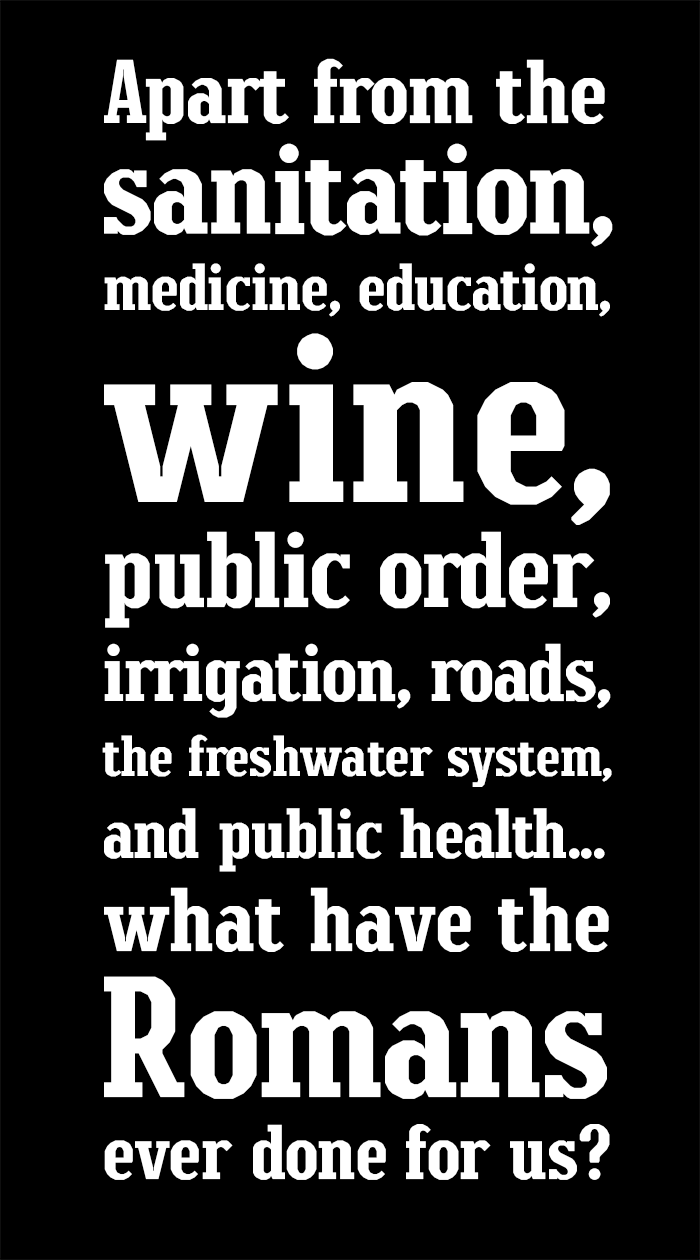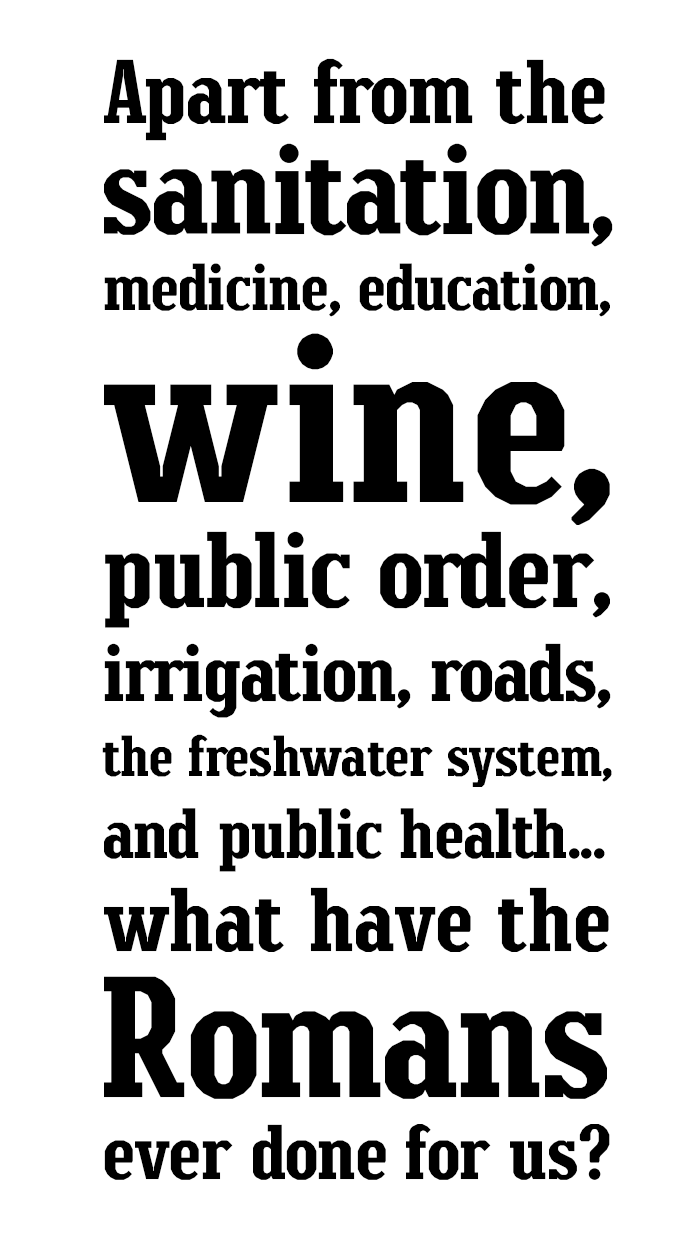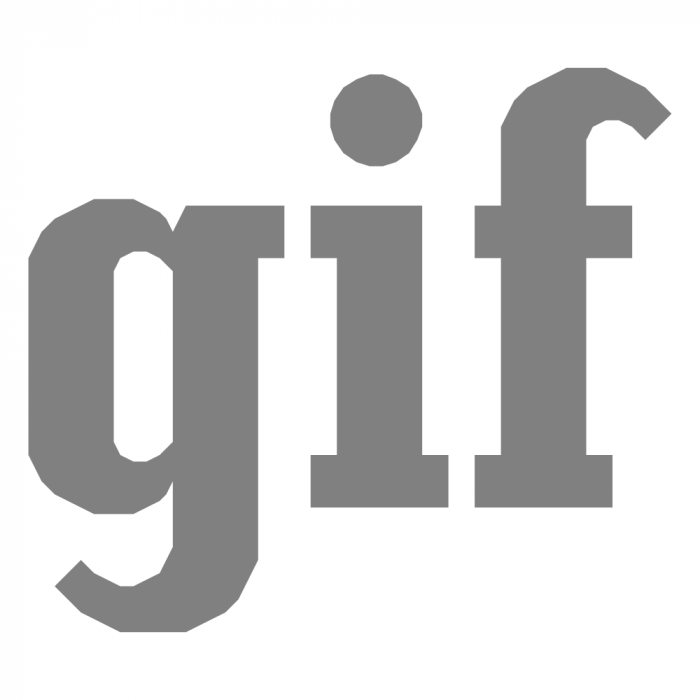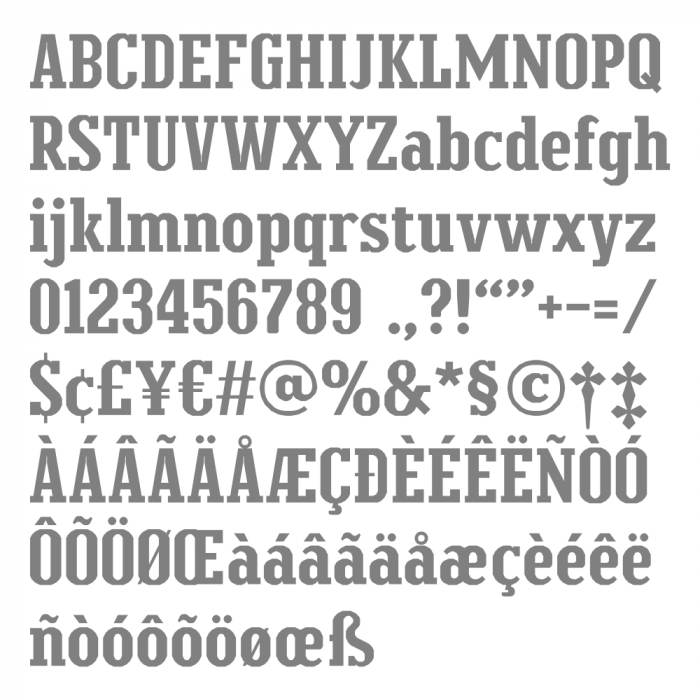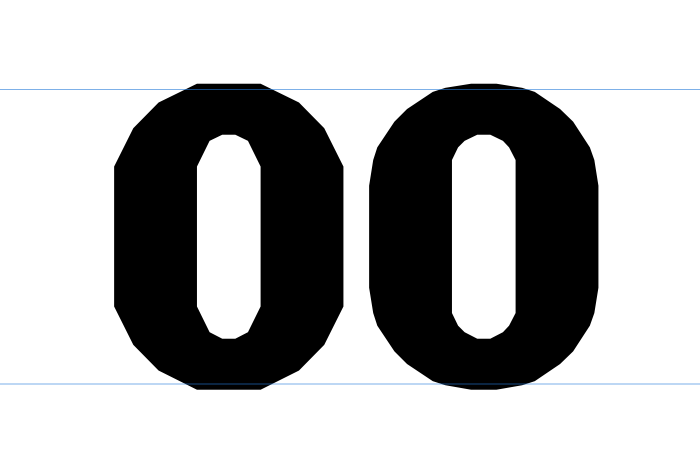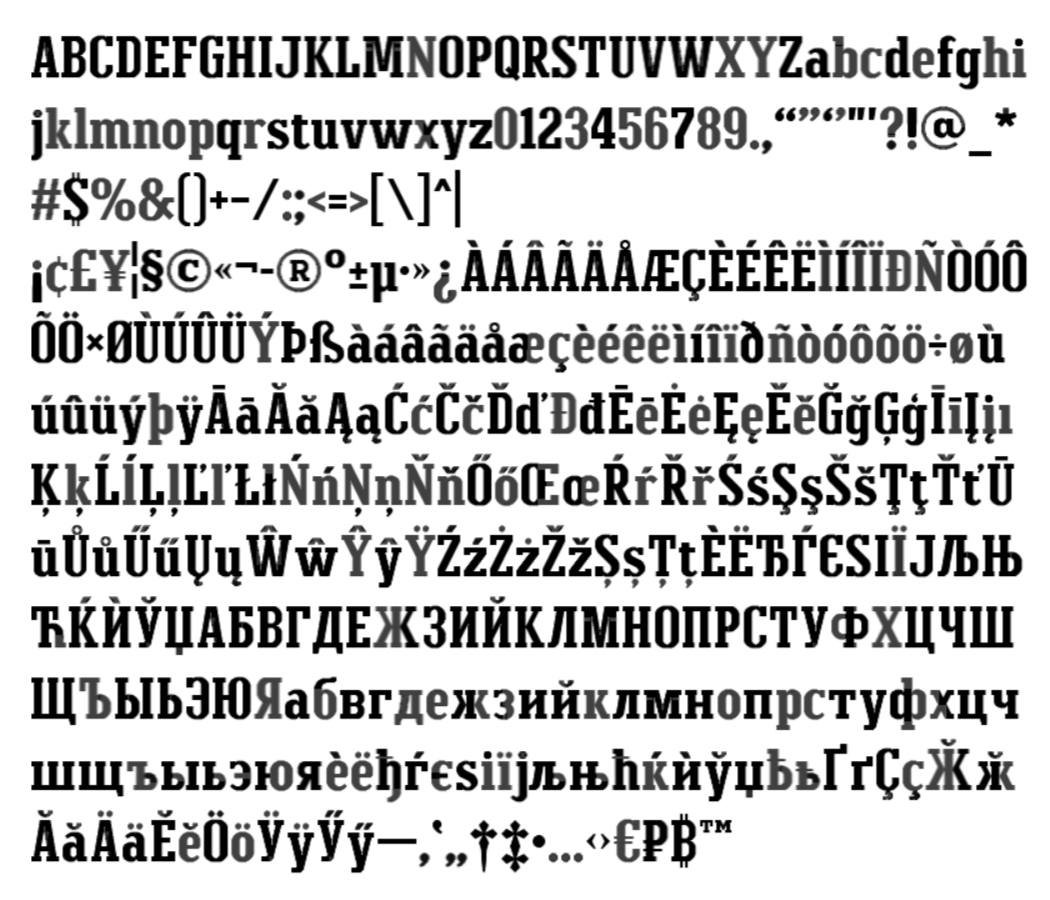
• Condensed slab serif. Elspeth: elegant, classic, feminine name of Scottish origin; from Hebrew Elisheba (Elizabeth).
This is a fully refurbished and extended version of my 2009 fontstruction. I preserved the original rough-around-the-edges look. Having those polygonal curves was a big deal back then.
Changes made to the original version:
Flat bottom A, V, v, W, w with ink traps
New Q, y; modified i j ? ! &
Numbers refined: 2 3 5 6 7 8 9
Punctuations: new . , : ;
The character set has been upgraded to extended Latin.
A very good slab font, although I am still confused by the symmetrical W. You also forgot to write about important and good changes in B and D.
I'm with Dmitriy. Anyway, great refreshment and "face washing" for the font. I like it much more now, dear Maestro.
@Dmitriy Sychiov (Sychoff): thank you for your comment and generous rating. You have sharp eyes. The B and D were modified back in 2016, and I completely forgot about them. I made a lot of small adjustments. At some point, I started taking notes to record the changes. The list is not complete. The W, w: symmetrical and asymmetrical versions were created, and I considered both. I also did some research on this topic. The symmetrical version looked much better. The Cyrillic set is also in my plans.
Great demo pics and nice inktraps, btw. "Life of Brian" forever! ;-D
Wow, what a absolute stunning font. Simple at first glance, but hiding carefully implemented nuances and clever tricks to achieve that optical sweetspot.
The overal character set looks very consistent and harmonically balanced.
@Sed4tives: Thank you for your kind words. I always felt that this font "wanted" to look like those made with Bezier curves. Like Pinocchio, the wooden puppet dreamed of becoming a real boy. However, Elspeth is made of bricks, not fancy curves. I could refine the polygonal parts further; I have already done pilot work exploring that avenue. The result looked nice but generic. (There are a dozen similar condensed slab serifs on the market.) I decided to keep the original rough polygonal character: Elspeth remains faithful to its brick origin.
A version with higher interpolation interval would just be icing on the cake, would love to see that one some day.
On the other hand, this already looks decent enough in its own right due to the weight of the lettering. Bold proportions seems to do an exelent job at masking minute imperfections in curved surfaces. I think I have never realized this before.
It "sort of" guiding awareness more towards overall shape of a letter rather than solely its contours, therefor I don't think that smoother curve fitting is truly mandatory in this particular case. Though, the idea somewhat has me curious right now... (especially knowing the skill you bring to the table)
Left: current version. Right: improved version. The same dimensions: 18x24 bricks, including overshoot. The inner contour could be further refined using custom bricks. I am open-minded about this project. It would take a lot of pixel-pushing, though.
Your updates make this even more balanced and beautiful!
Very pretty! The dagger looks nice. (Dagger is †)
The following changes have been made: the J and M were redesigned, to the N ink traps were added, and the R, x, Ø, ø were modified. The position of diacritical marks was adjusted. Subtle refinements were made on several other glyphs.